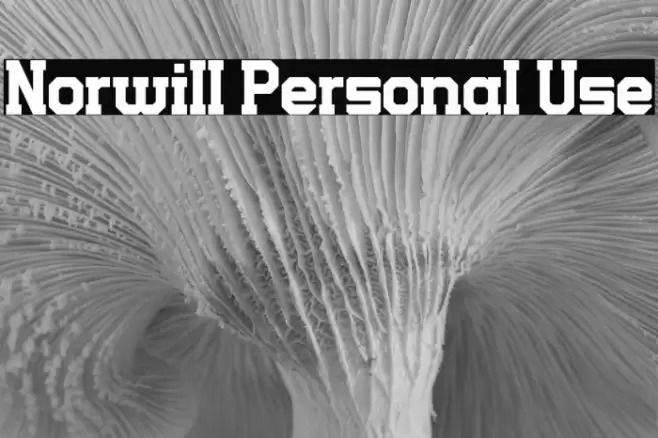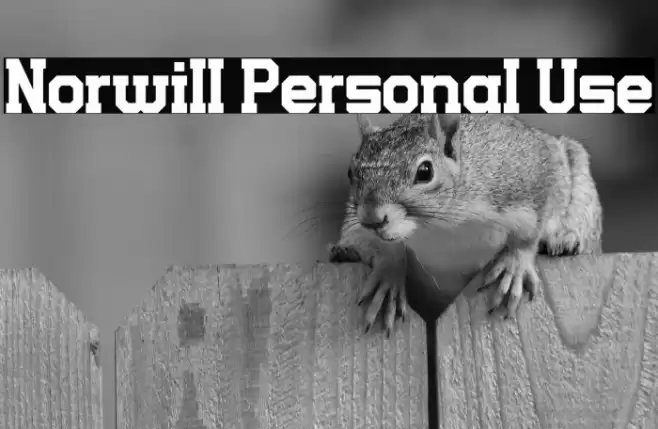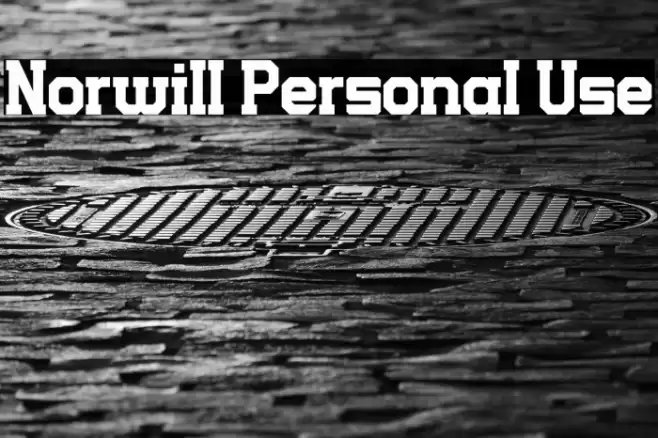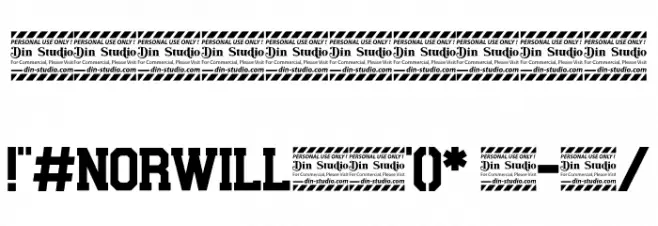
Norwill Personal Use Font
Norwill Personal Use Description
This font features a bold, geometric design with strong, angular lines and a robust presence. The uppercase letters are particularly striking, with a blocky, industrial feel that suggests strength and stability. The lowercase letters maintain this boldness while offering a slightly more compact form. The numerals and special characters are consistent with the overall design, ensuring a cohesive look across all text. The font's style is reminiscent of vintage industrial signage, making it ideal for projects that require a bold, impactful statement. Its strong presence and unique character make it suitable for headlines, posters, and branding materials where a commanding visual impact is desired.
A bold, geometric font with an industrial, vintage feel from Uncategorized fonts.
- Proposed Projects: Ideal for headlines, posters, branding, and any project requiring a strong visual impact.
- Overall Style: Vintage, Industrial
- Use Case: Headlines, Posters, Branding